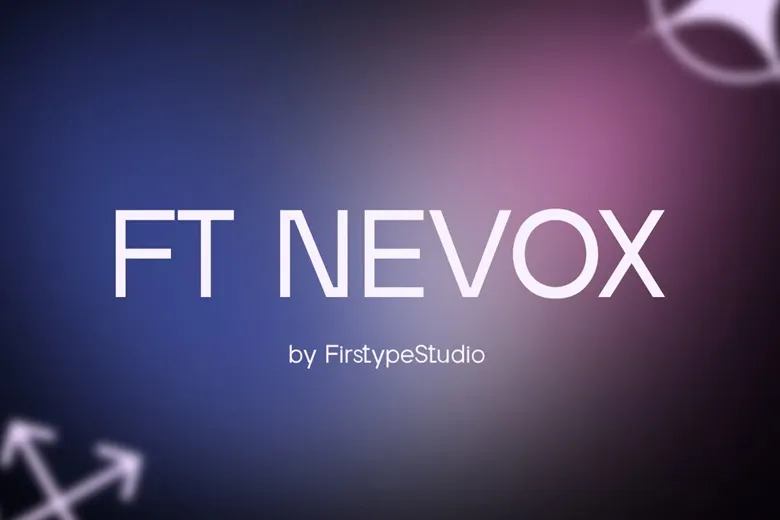
FT Nevox Font is a modern sans serif typeface that seems to embody the crystal clear aesthetics of a scientifically accurate diagram. With sharp lines and correctly proportioned, it reflects the spirit of the modern workaholic and business-like man. It is very simple, which means is extremely legible and impactful perfect for flexible and eye-catching designs. FT NEVOX feels very well designed and thoroughly constructed like real design; this font type carries curves and edges of an artistic and professional feeling to it.